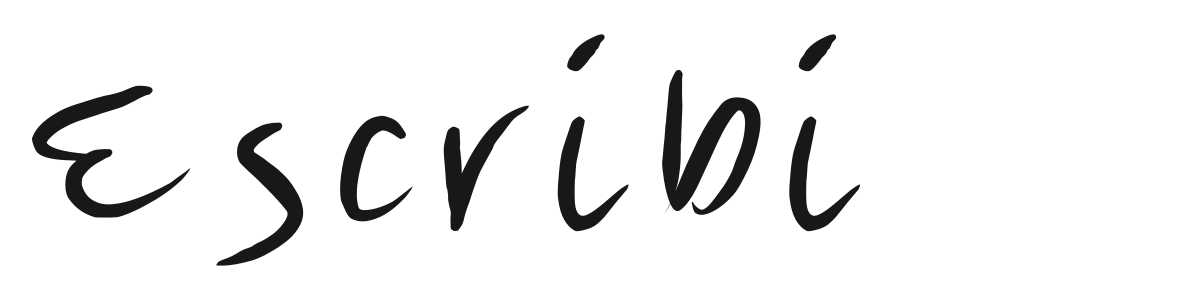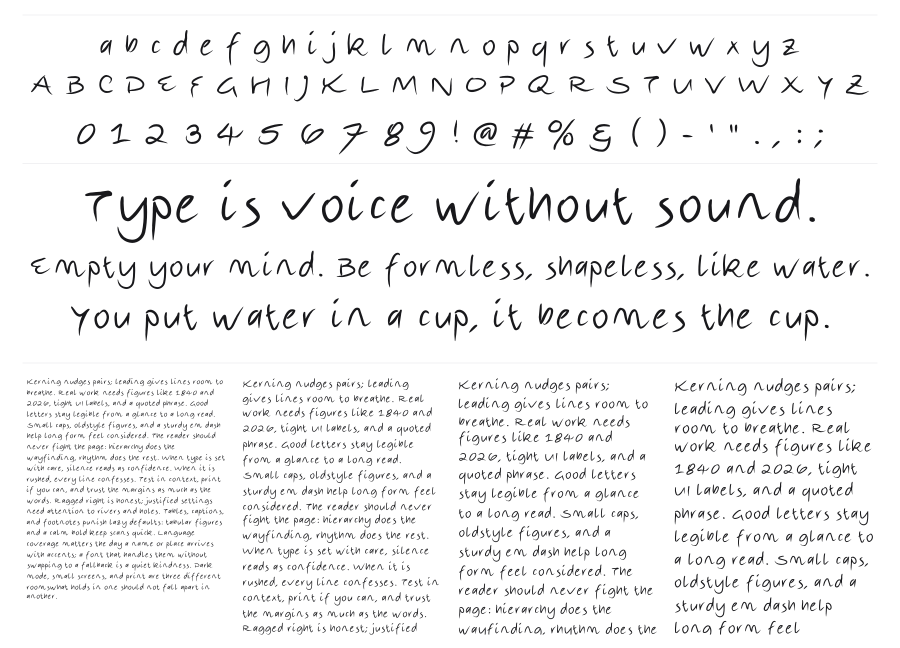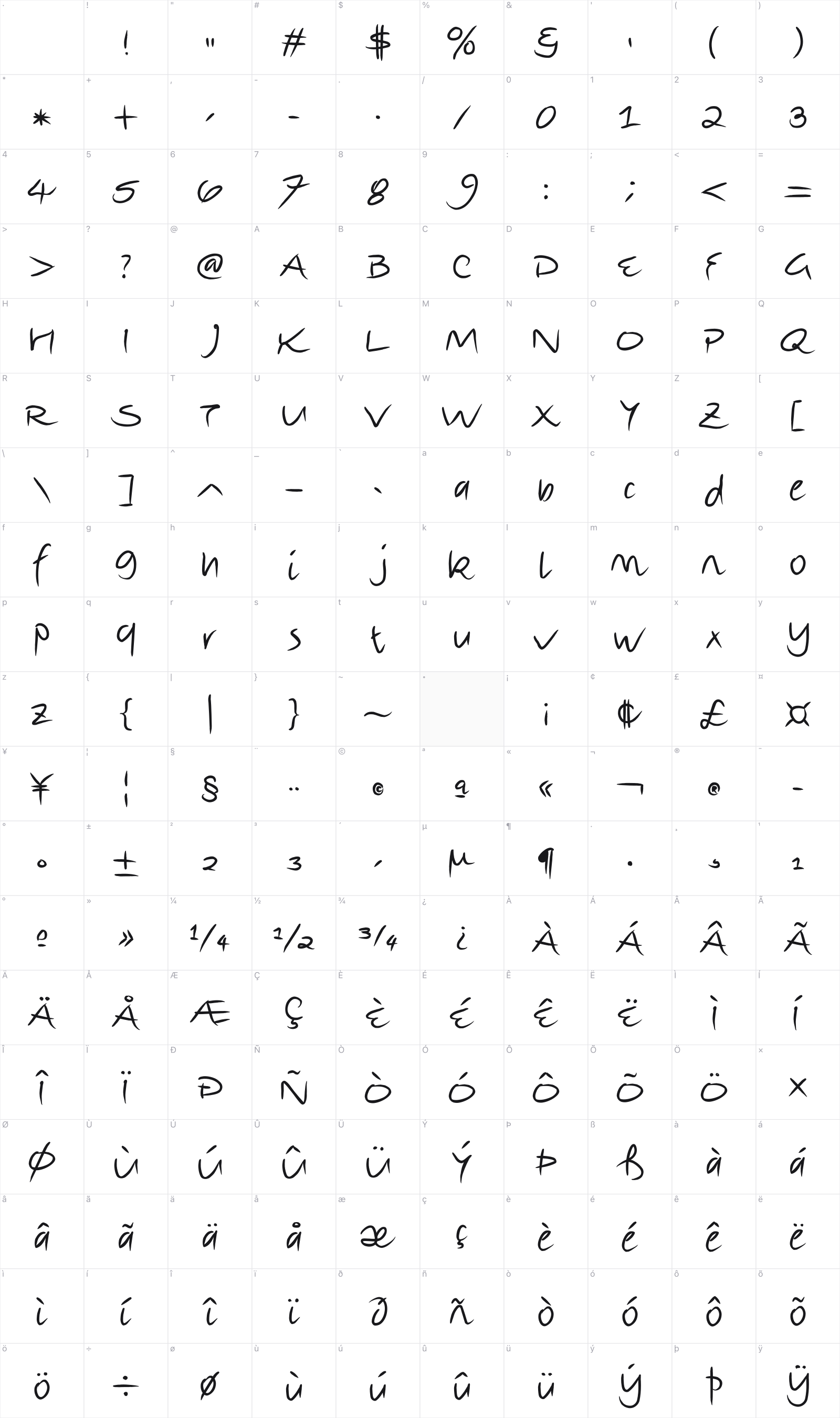
Escribi
Escribi is a casual handwritten script that looks like it was dashed off with a felt-tip pen on the back of an envelope. The letters have a loose, uneven rhythm that feels genuinely personal rather than stylized. It works well anywhere an authentic, unfussy human touch is needed.